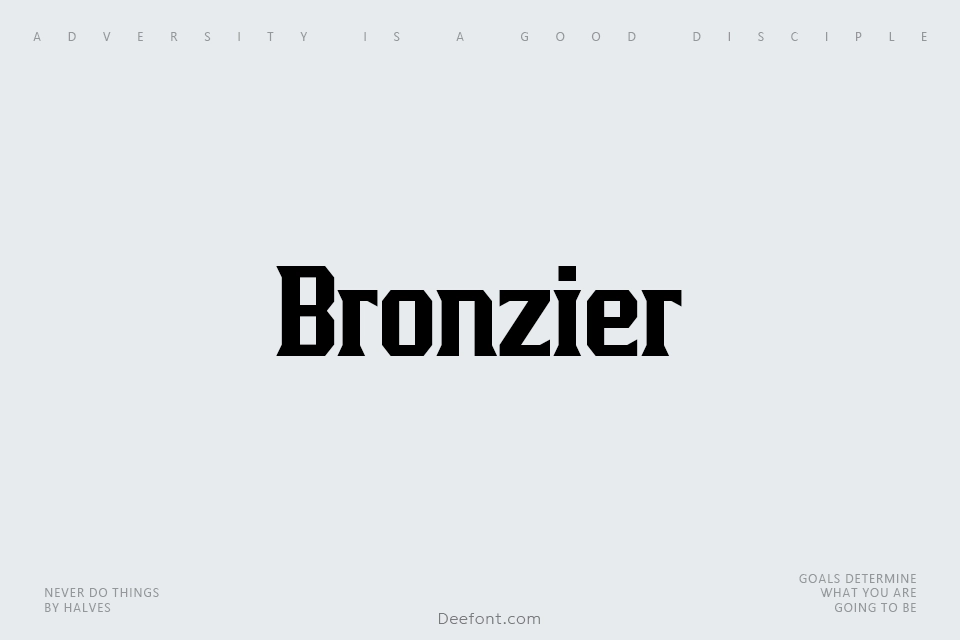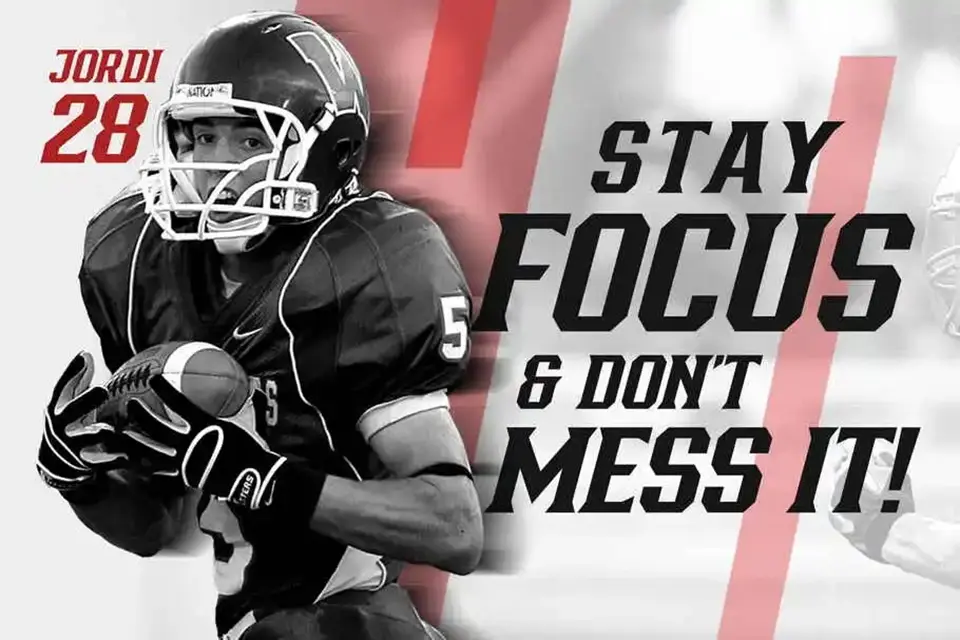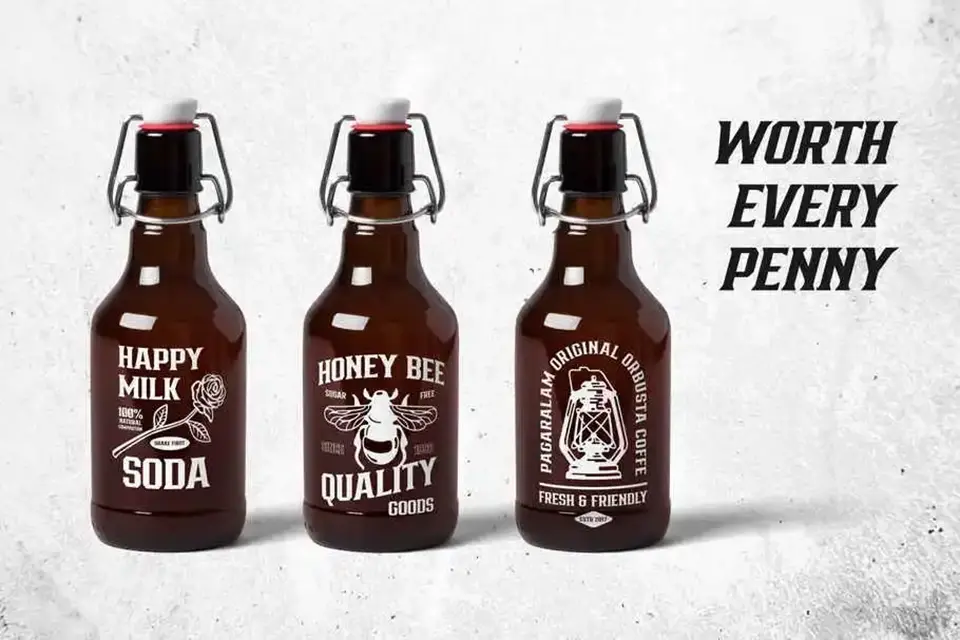
Bronzier Font
Bronzier is a strong serif font family featuring eight distinctive styles including medium, bold, italic, rusty, outline, embossed, shadow, and stencil variations. Designed with sharp and robust serif characteristics that convey a masculine aesthetic, this versatile typeface seamlessly blends sporty, vintage, and contemporary design sensibilities. Inspired by old-school typography combined with modern styling, Bronzier excels in logo design, logotype creation, apparel branding, jerseys, tags, labels, posters, stickers, and comprehensive brand identity projects.